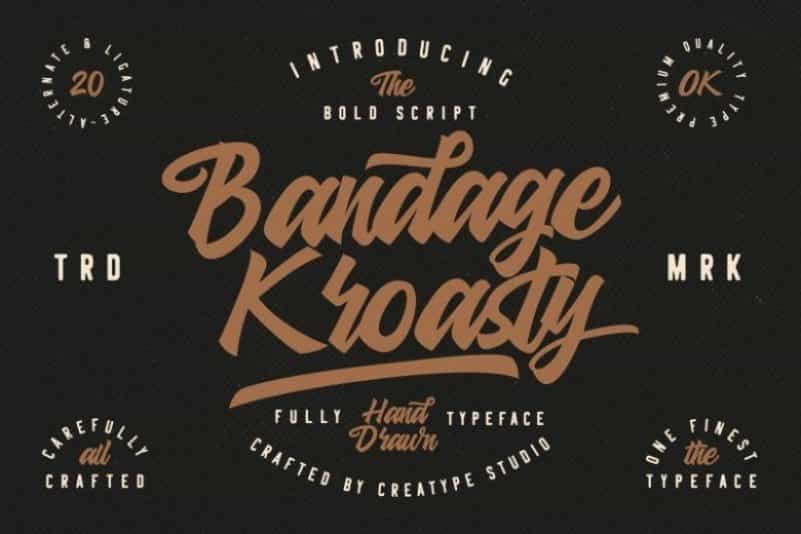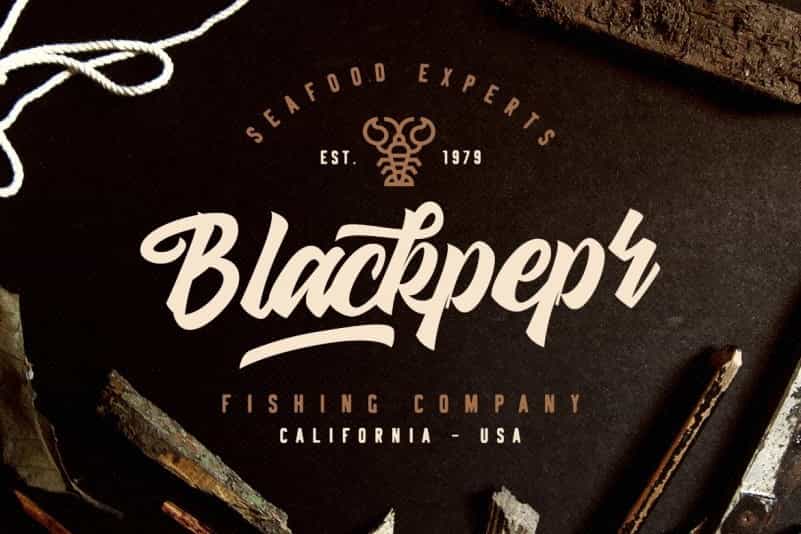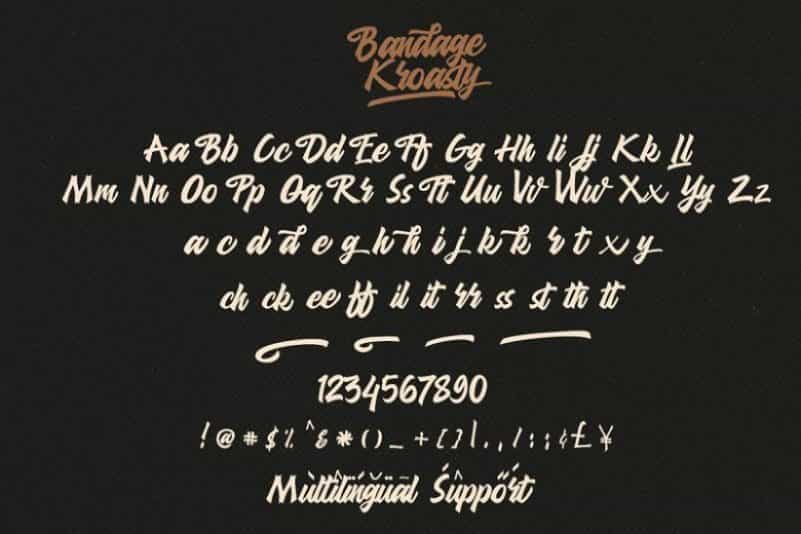
Let the elegance of Bandage Kroasty a fashion-font script with natural hand movement come to life in your next design project. Bandage Kroasty is perfect for use in logos, brand marks, wedding works, social media visuals, advertisements, packaging designs, product images, labels, photographs, watermarks, invitation cards, stationery and any project that would benefit from that touch of elegance.